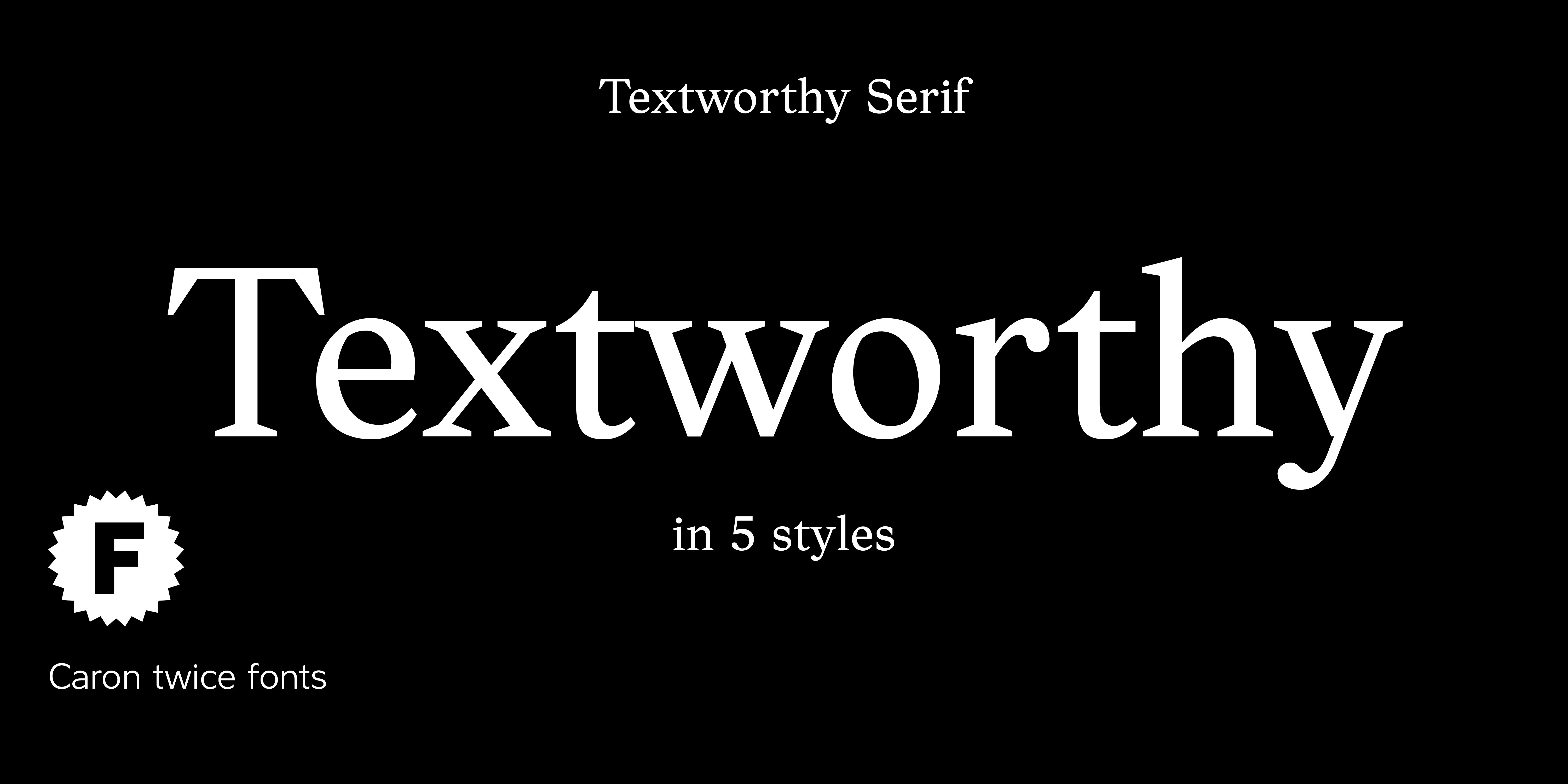
Textworthy Serif Font Free Download – A Timeless & Readable Serif for Professional Publishing
Looking for a font that combines classic elegance with modern readability? Textworthy Serif Font Free Download delivers a refined serif design perfect for books, magazines, academic papers, and any long-form content requiring both beauty and functionality. Its balanced letterforms and optimized proportions ensure comfortable reading experiences.
Why Choose Textworthy Serif?
Textworthy Serif Font Free Download excels with:
Traditional serif structure with contemporary spacing
Multiple weights from Light to Bold with true italics
Exceptional paragraph readability in print and digital
Complete character set for professional typography
Textworthy Serif Font Free Download – The Reader's Choice
Ideal for serious publishing applications:
Book interiors & literary journals
Academic research papers & theses
Quality magazine layouts
Corporate annual reports